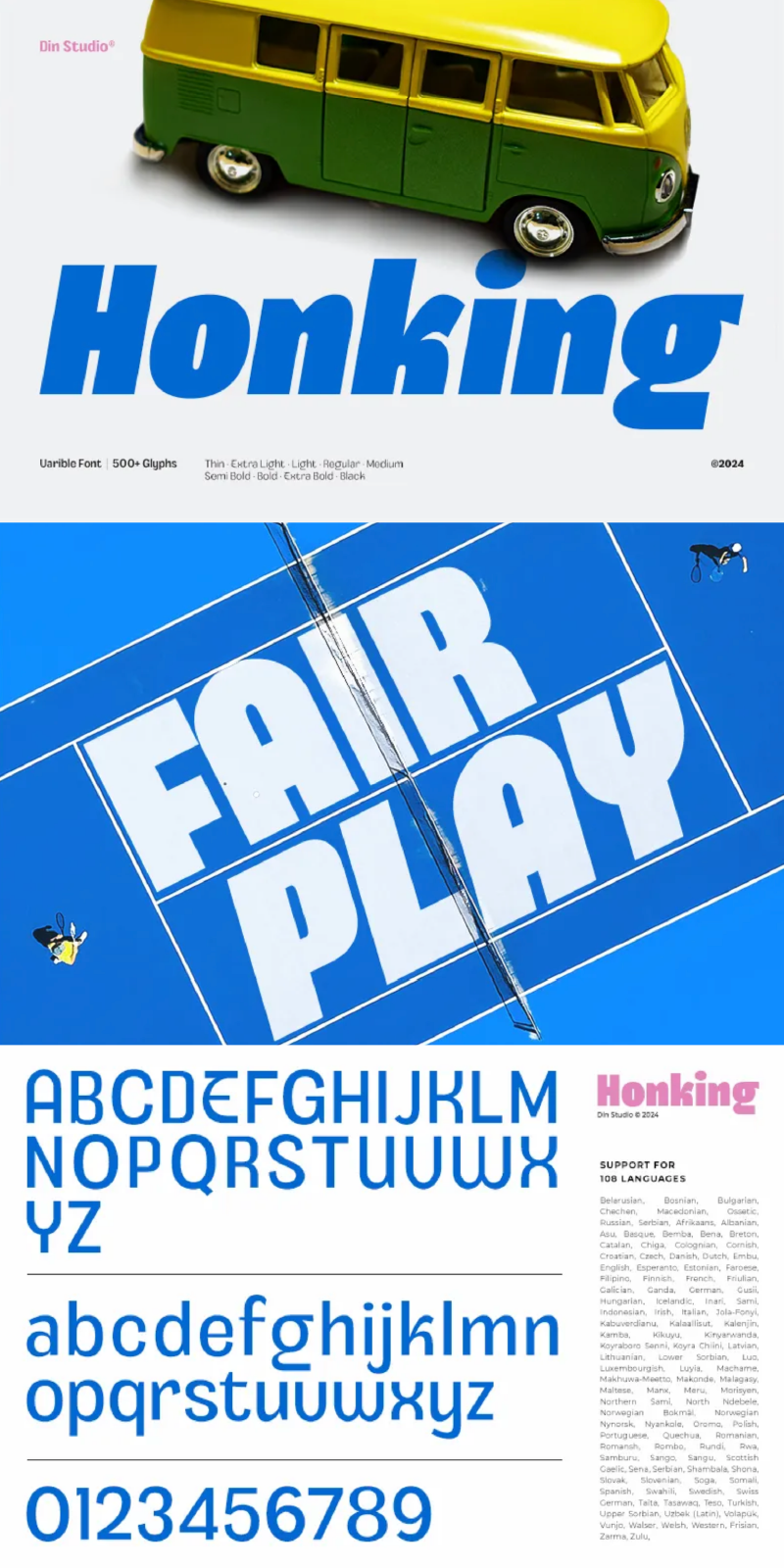
Honking Font
About Honking
Honking is a versatile sans serif font family designed with a modern style and a bold, impactful weight. Made in 9 different weights, each with an italic version, Honking provides ultimate flexibility for any design project. Elevate your designs with the contemporary sophistication of Honking.